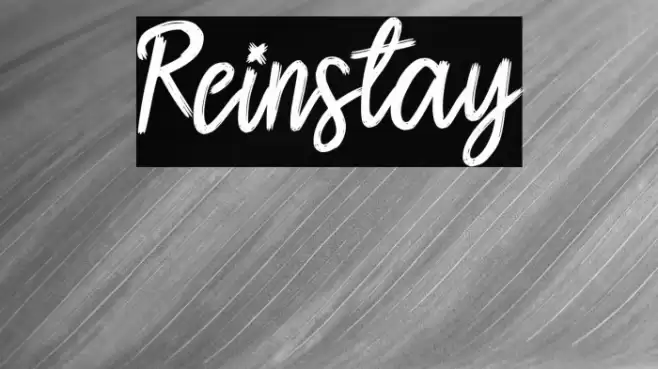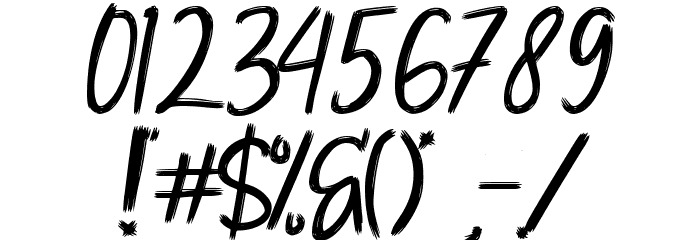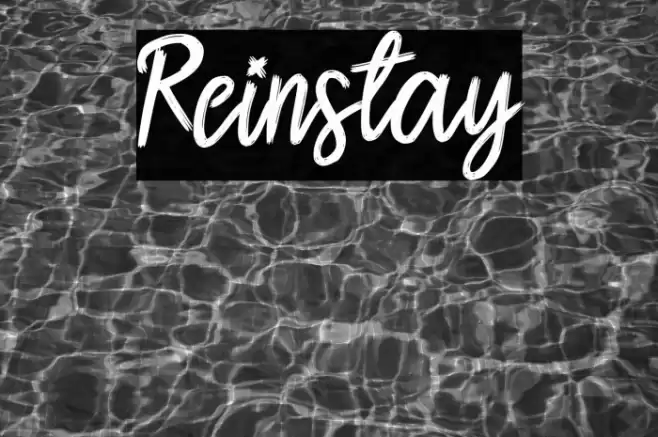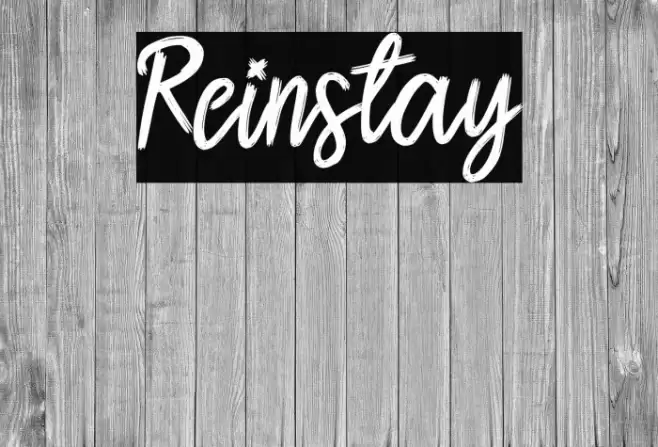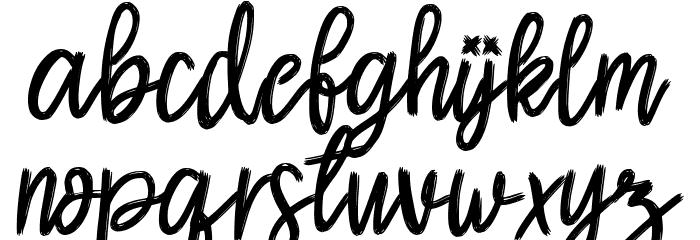
Reinstay Font
Reinstay Description
This font features a dynamic and energetic script style, characterized by its bold, sweeping strokes and slightly irregular baseline. The letters are connected in a fluid manner, giving it a handwritten appearance that exudes personality and flair. The uppercase letters are tall and commanding, while the lowercase letters maintain a consistent flow, enhancing readability. The numbers and special characters are crafted with the same lively spirit, ensuring a cohesive look across all text elements. This font is perfect for projects that require a personal touch, such as invitations, branding, and creative posters.
A bold, energetic script font with a dynamic, handwritten style from Uncategorized fonts.
- Proposed Projects: Ideal for invitations, branding, creative posters, and any project needing a personal touch.
- Overall Style: Decorative
- Use Case: Logos, Headlines, Invitations